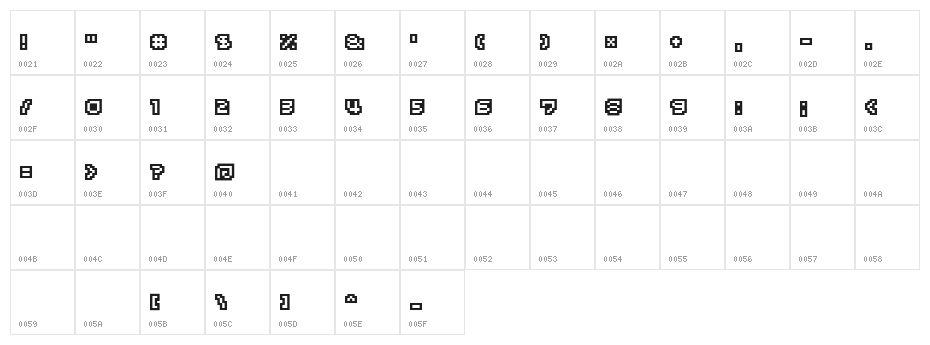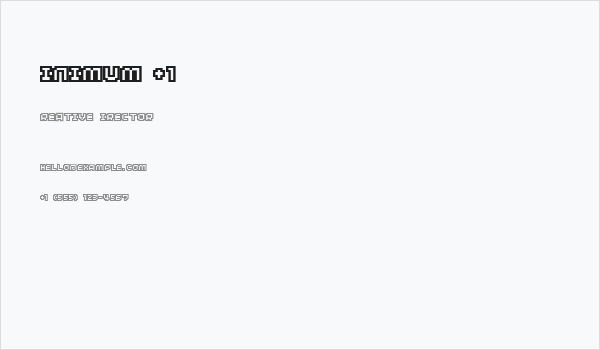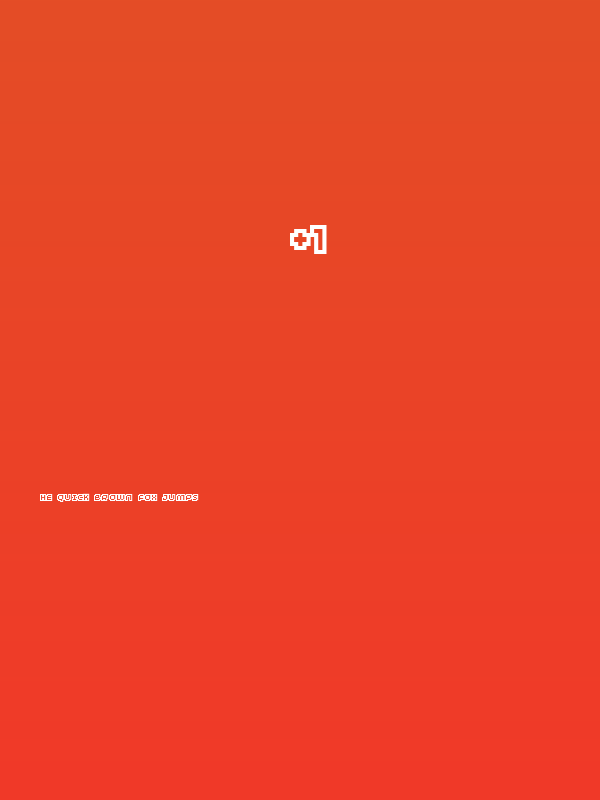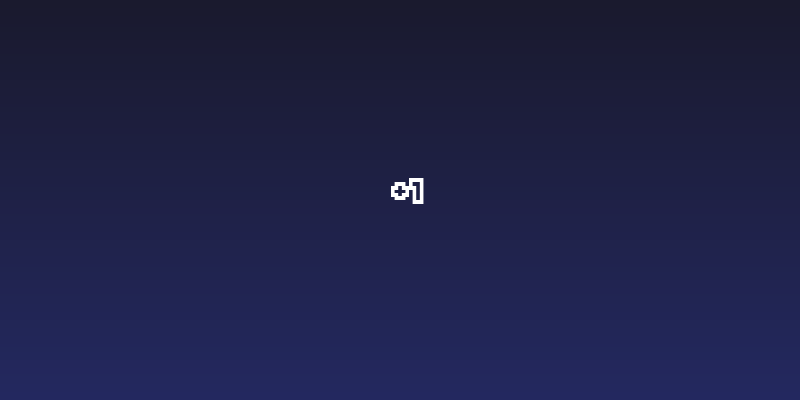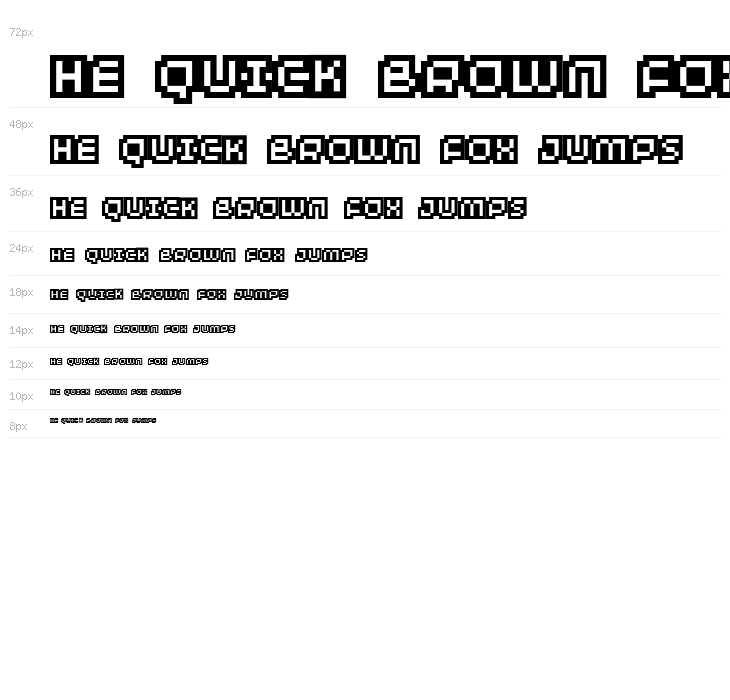
Minimum +1 Font
Minimum +1 Description
This font features a bold, pixelated style reminiscent of early digital or video game typography. Each character is constructed with a blocky, grid-like appearance, emphasizing a retro, 8-bit aesthetic. The uniformity in height and width across all characters creates a cohesive and structured look. The uppercase and lowercase letters maintain a consistent design, with minimal differentiation in size, enhancing the font's geometric and monospaced qualities. The numerals and special characters follow the same pixelated pattern, ensuring visual harmony throughout the set. This font's distinct style is ideal for projects that aim to evoke nostalgia or a digital theme.
| Overall Style | Retro |
| Use Case | Headlines, Logos, Digital Art |
| Proposed Projects | Ideal for video game design, retro-themed posters, digital art, and tech-related branding. |